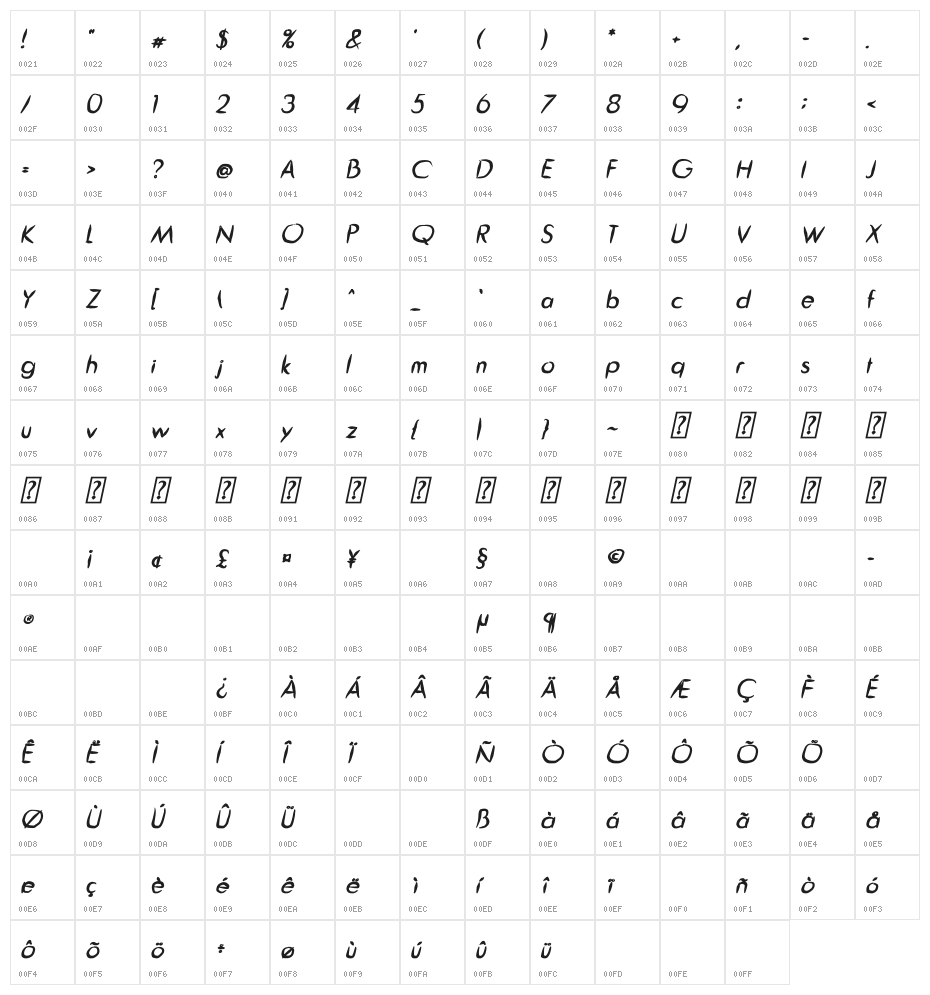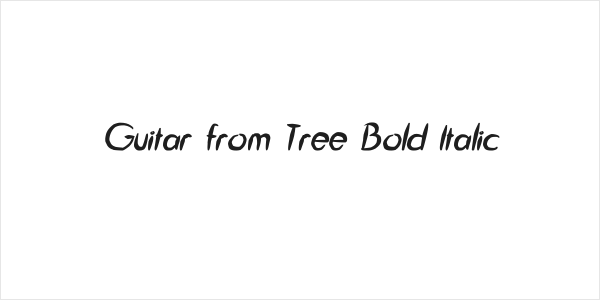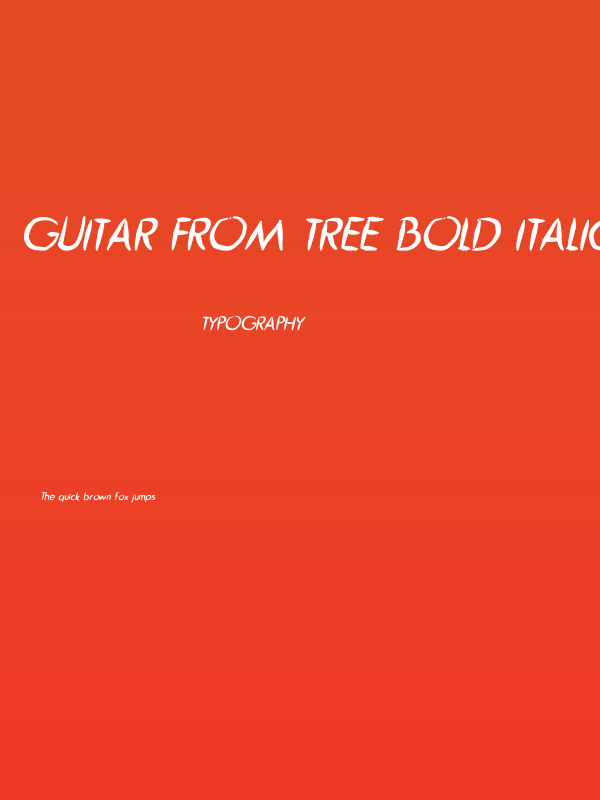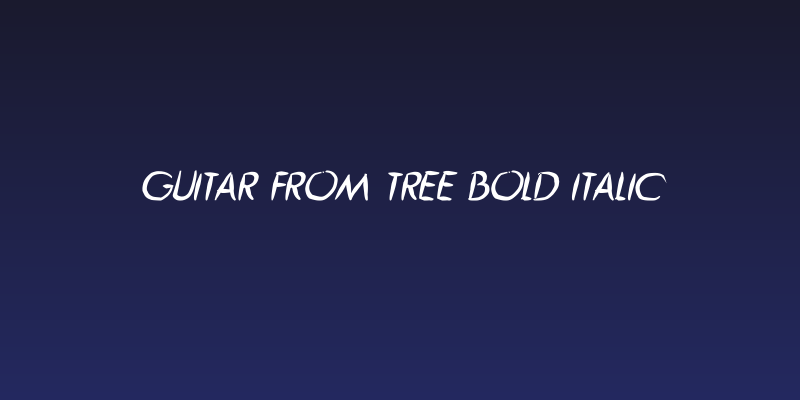
Guitar from Tree Bold Italic Font
Guitar from Tree Bold Italic Description
This font exhibits a bold and italicized style with a handwritten flair, characterized by smooth, flowing lines and a slightly slanted orientation. The uppercase letters are distinct with a playful yet sophisticated appearance, while the lowercase letters maintain a consistent style that complements the uppercase. The numerals are clear and legible, matching the overall aesthetic of the font. Special characters are included, adding versatility for various design needs. The font's boldness ensures visibility and impact, making it suitable for eye-catching designs.
| Proposed Projects | Ideal for creative projects such as logo design, branding, posters, and invitations where a personal touch is desired. |